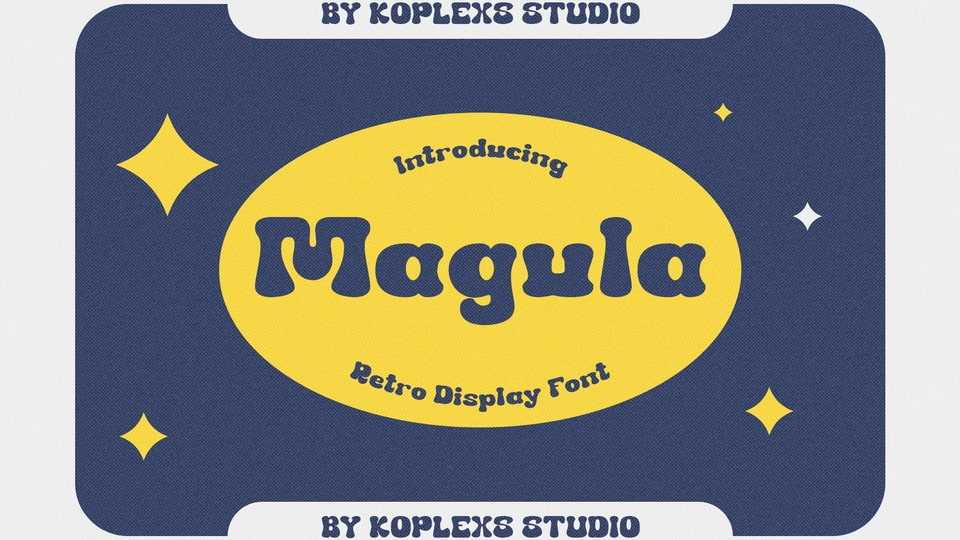
Download Magula font, a vibrant and playful retro style typeface that brings nostalgic charm to modern designs. With its bold curves, smooth edges, and groovy font aesthetic, it captures the essence of 70s-inspired vintage fonts.
Designer: Koplexs Studio